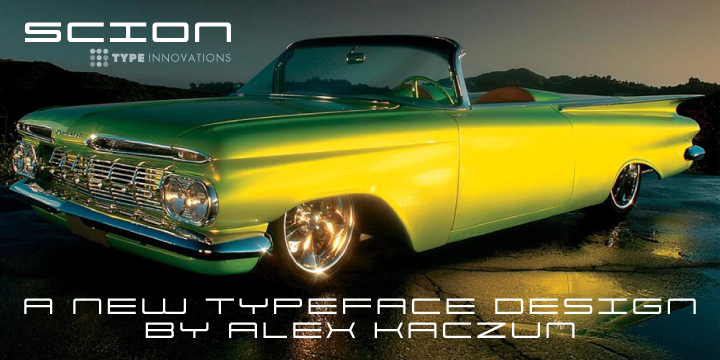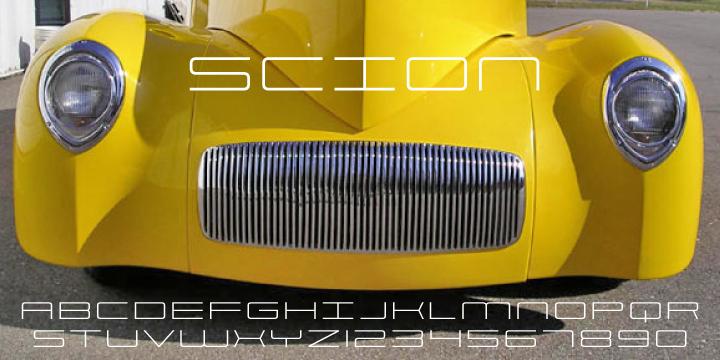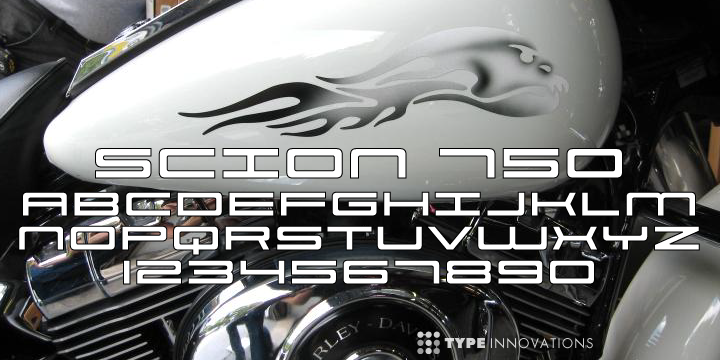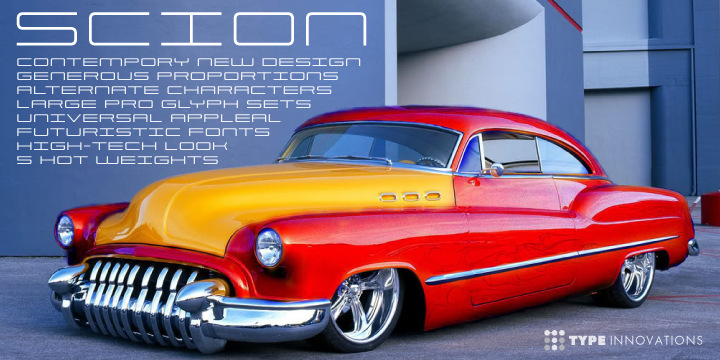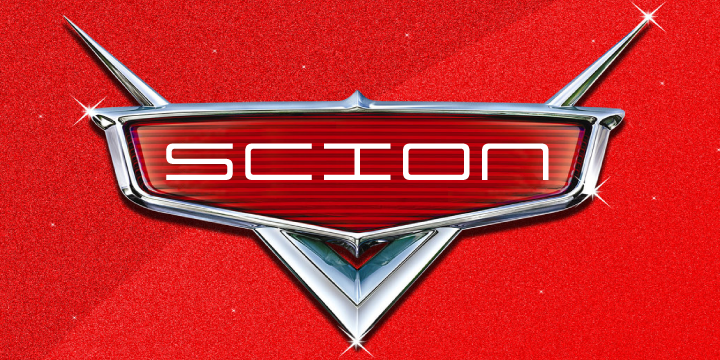
Scion is a display sans font family. This typeface has five styles and was published by Type Innovations.
‘Scion’ is an original design by Alex Kaczun. The inspiration for the typeface came from the Toyota SCION logo, which bears its name. In Alex’s own words, “I loved the simplicity, proportions and hi-tech look of the logo and decided to create an entire new design series based on its unique look”. The fonts come in 5-flavors: thin, light, regular, bold and black. All the font weights where designed systematically on tabular widths so that the user can make adjustments to overall type color without changing the line length.